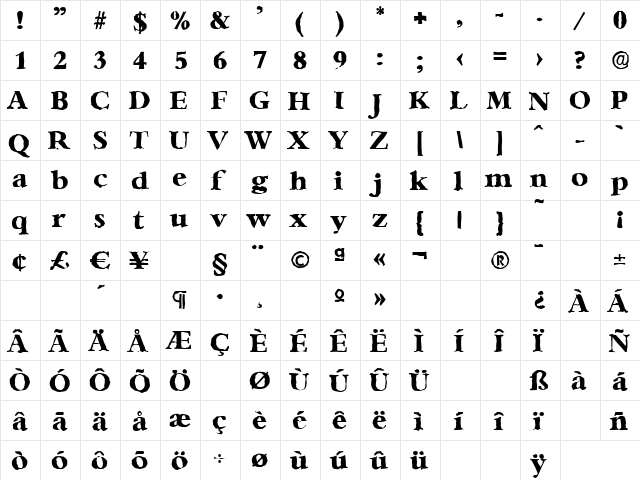
AndrewBeckerAntique-ExtraBold Regular
Design Context for AndrewBeckerAntique-ExtraBold Typeface
AndrewBeckerAntique-ExtraBold has the warm character of retro typography — evoking diners, record sleeves, and the golden age of print advertising. Its bold stroke weight gives it real presence on the page.
Font Pairing: Combine AndrewBeckerAntique-ExtraBold with a simple slab or neutral sans — period-accurate companions reinforce the vintage feel without competing for attention.
Pro Tip: Lean into AndrewBeckerAntique-ExtraBold's period character by pairing it with aged paper textures, muted colour palettes, and vintage illustration styles.